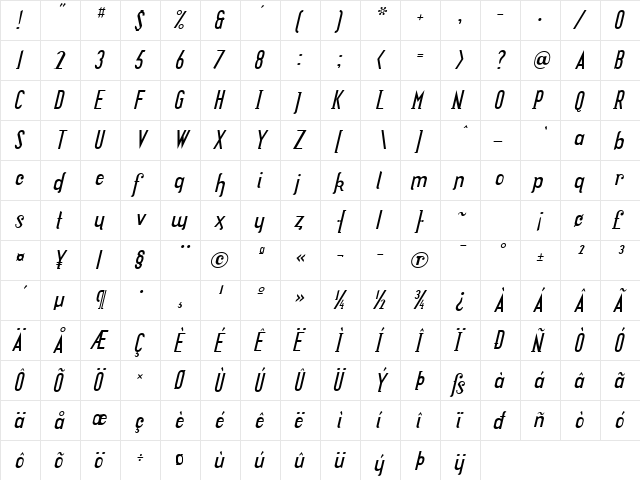
Locus Italic
Design Context for Locus Typeface
Locus offers clean, dependable letterforms without strong stylistic allegiance, making it a practical choice for designers who need flexibility. Its italic angle brings a sense of urgency and motion to the letterforms.
Pro Tip: Try Locus for annotation and caption copy alongside an upright companion — the contrast in angle creates a dynamic but ordered typographic system.